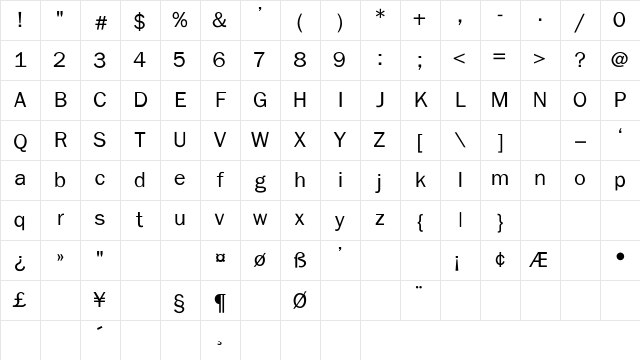
FranklinGothlte Regular
Design Context for FranklinGothlte
FranklinGothlte is a composed and adaptable typeface that performs quietly and consistently across a wide range of design contexts.
Pro Tip: Use FranklinGothlte in both headline and body roles to test its range before committing to a single application.